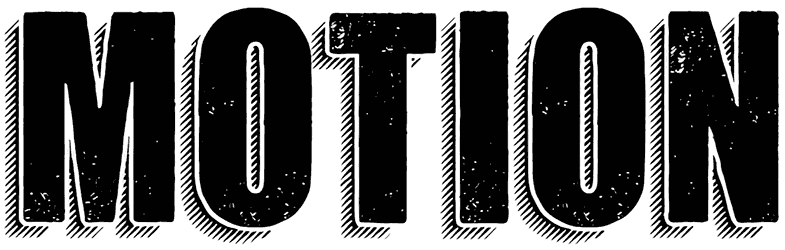
Motion Font
Motion is a shadow font that can be used to create an aesthetic effect, and using it will give your digital works an old-school vibe. This eroded font is chosen for advertisements, flyers, fashion, and clothes due to the vibrant colors that it offers.
Even though it does not contain any lowercase letters or numbers, try it out if you enjoy overcoming obstacles because the result will blow your client’s mind.
Six overlapping fonts.